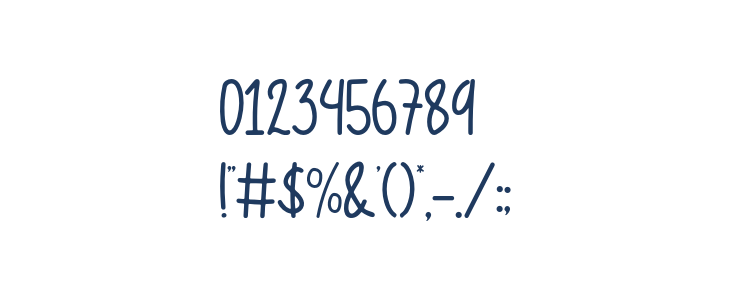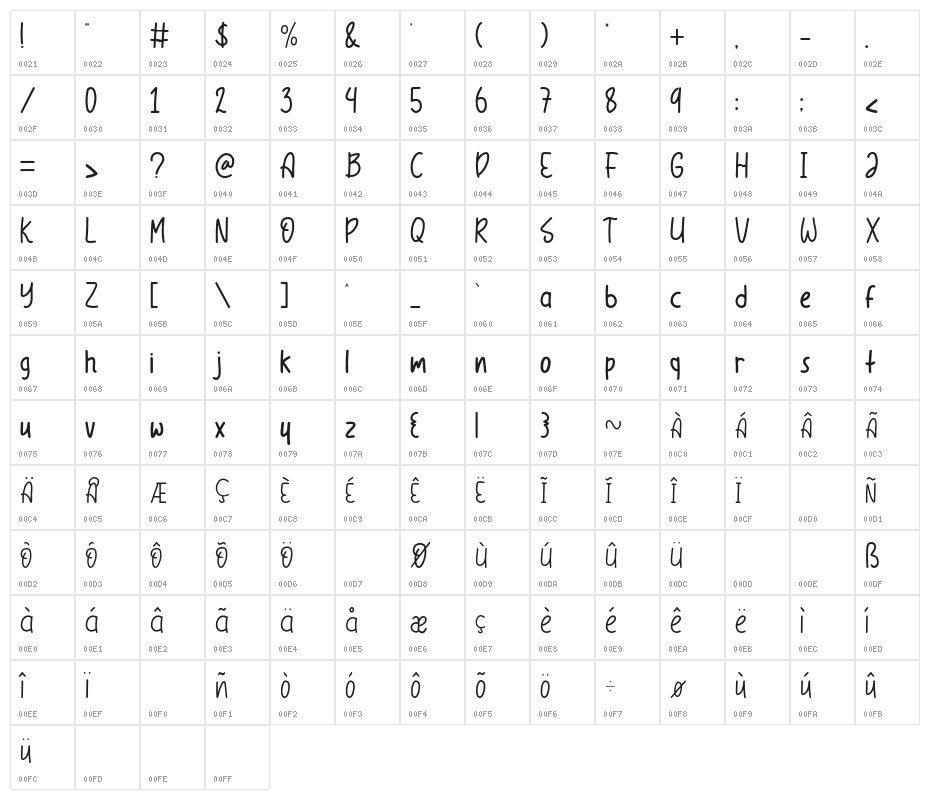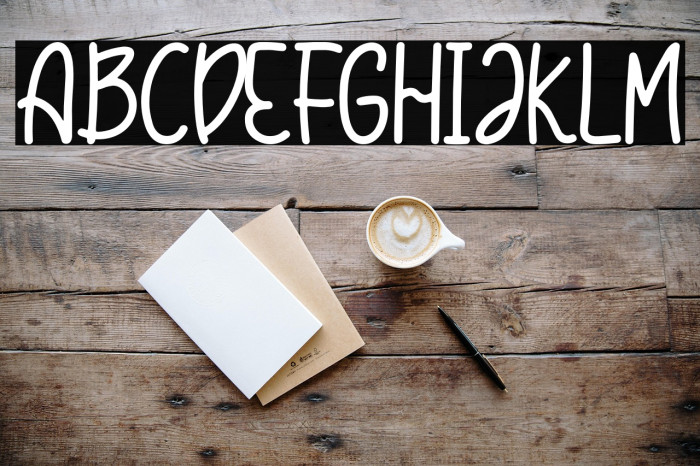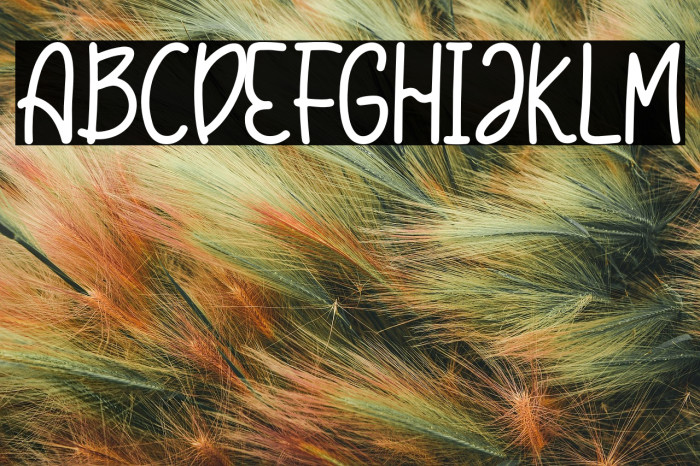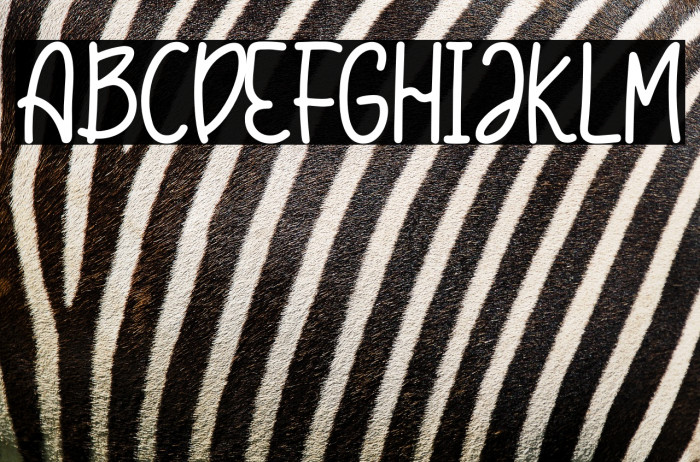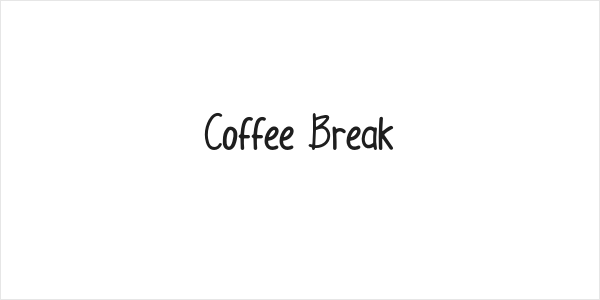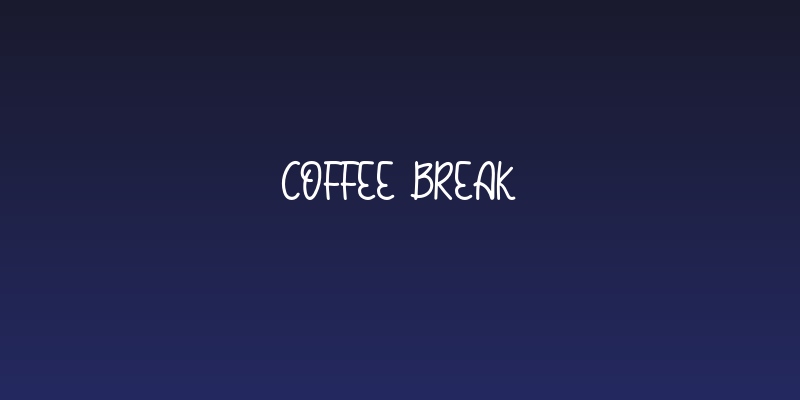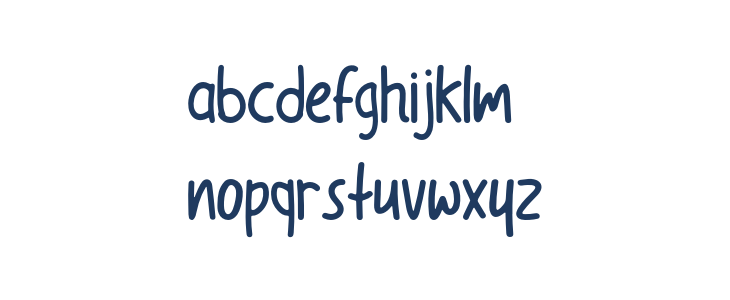
Coffee Break Font
Coffee Break Description
This playful and informal font features a handwritten style with a casual and friendly appearance. The letters are slightly irregular, giving it a personal touch that mimics natural handwriting. The strokes are smooth and rounded, providing a warm and approachable feel. It includes both uppercase and lowercase letters, numbers, and a variety of special characters. The font maintains a consistent weight throughout, with moderate character spacing that ensures readability while retaining its whimsical charm. Its versatility makes it suitable for a range of creative projects.
| Overall Style | Casual |
| Use Case | Logos, Invitations, Greeting Cards |
| Proposed Projects | Ideal for greeting cards, invitations, children's books, personal blogs, and casual branding. |